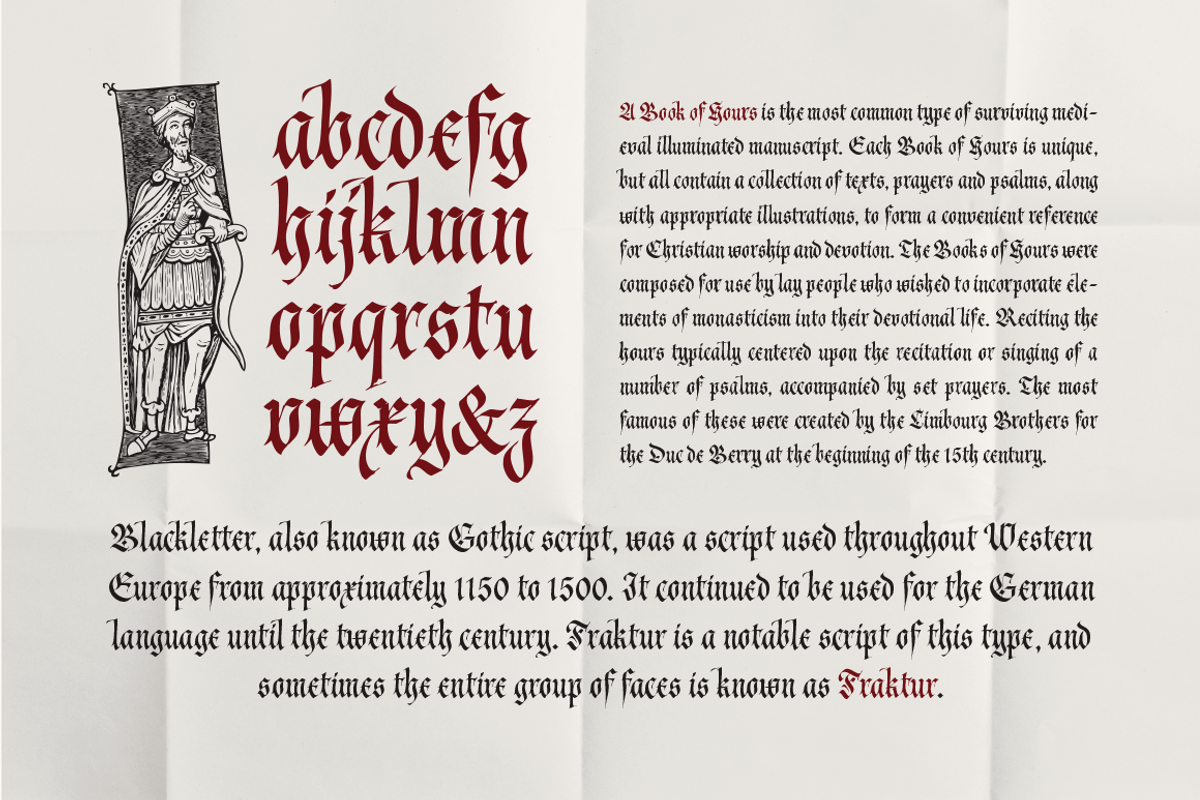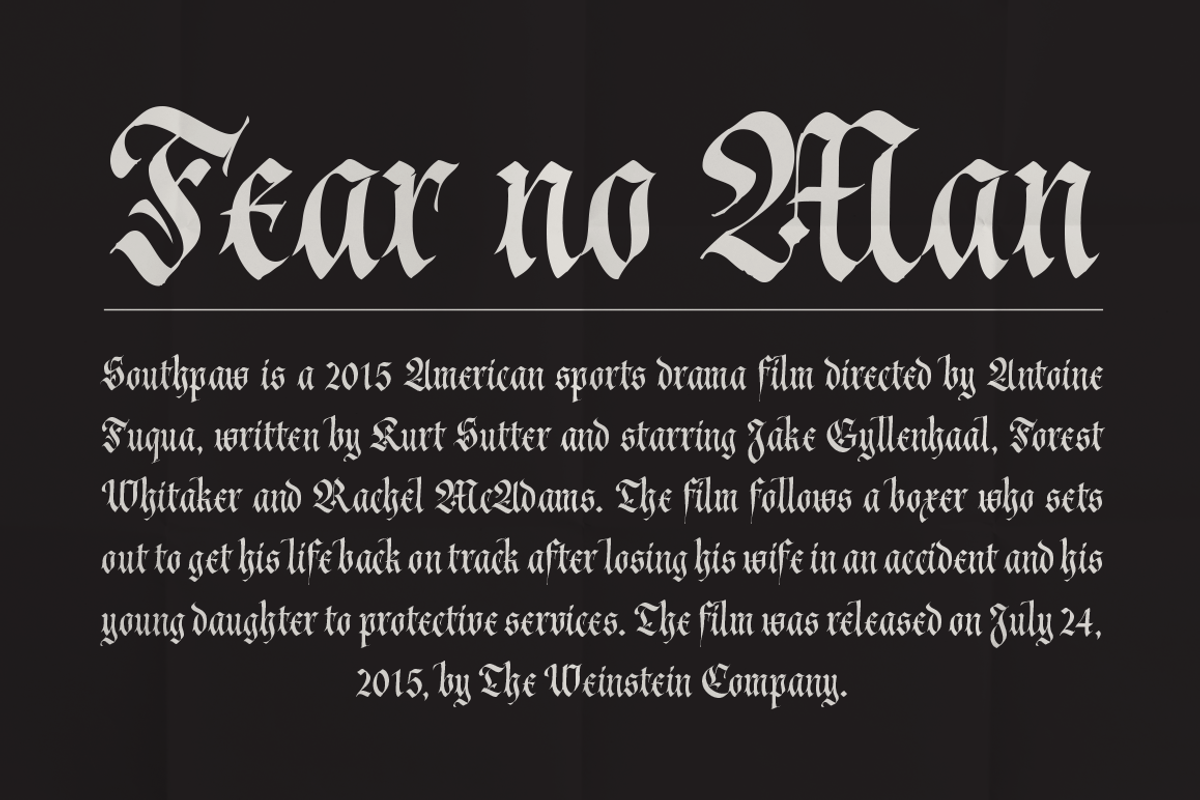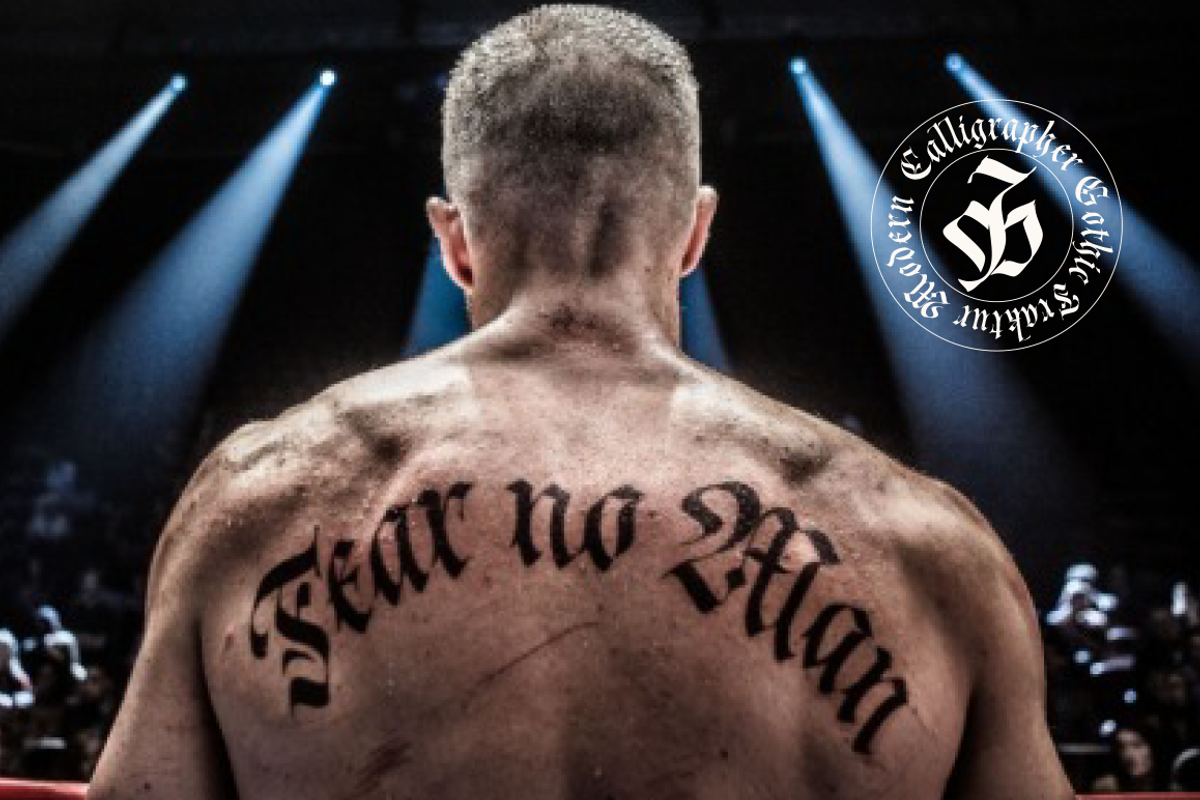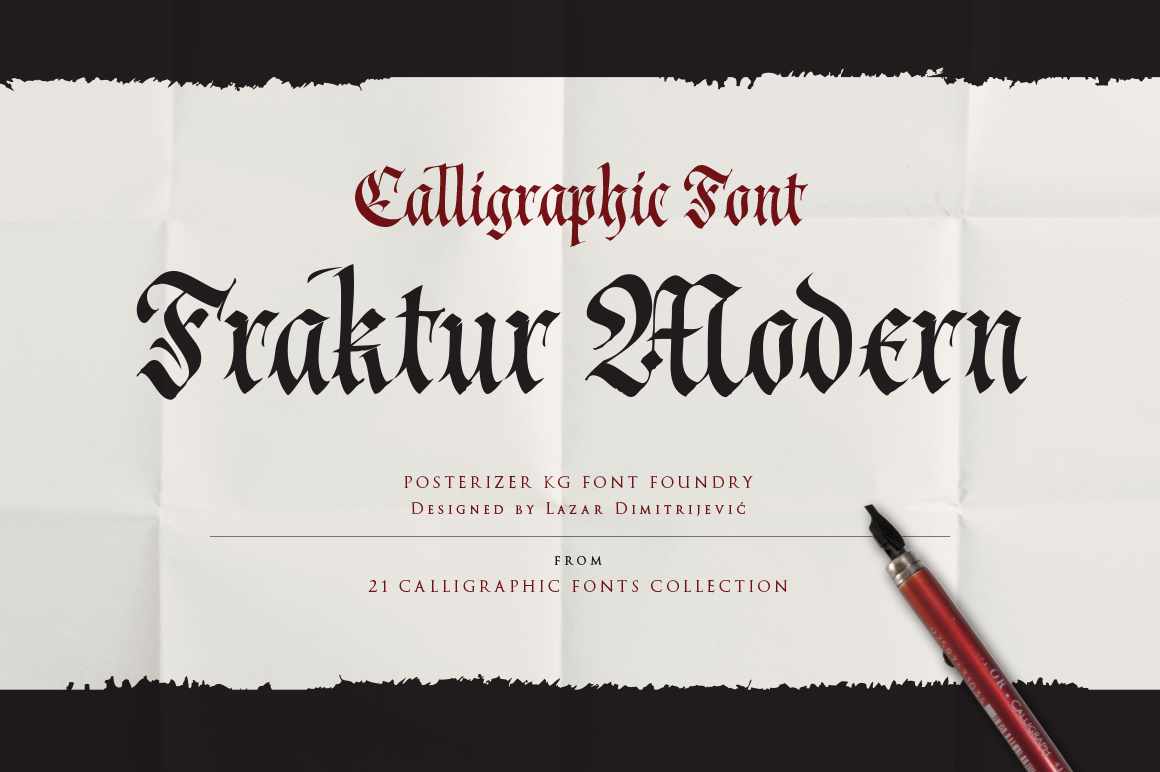
Cal Fraktur Modern font
Cal Fraktur Modern is one of the calligraphic group of fonts called “21 Calligraphic font collection“. All graphemes are taken from calligraphic pages written on modern Gothic Fraktur calligraphic style. This font is ideal for calligraphic sketches, tattoos or for imitation of ancient manuscripts. For example, Cal Fraktur Modern font was used for tattoo on Janke Gyllenhaal back, in the film Southpaw. Contains all the Latin glyphs.